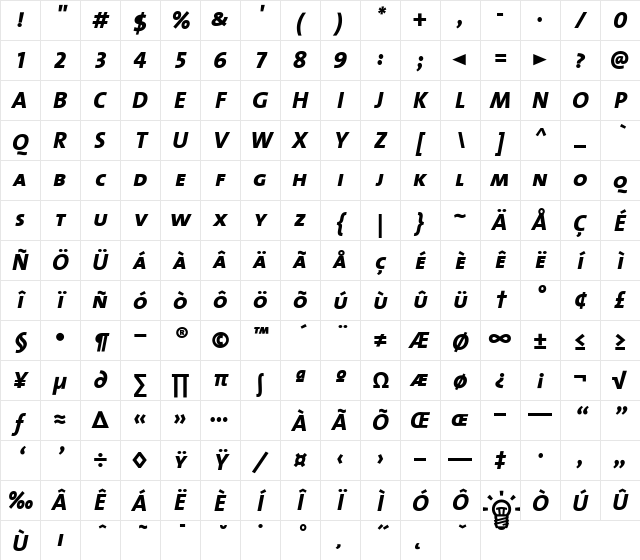
TheSansCaps-ExtraBold Extra Bold
Style: Extra Bold
Design Context for TheSansCaps-ExtraBold
TheSansCaps-ExtraBold is a composed and adaptable typeface that performs quietly and consistently across a wide range of design contexts. Its bold stroke weight gives it real presence on the page.